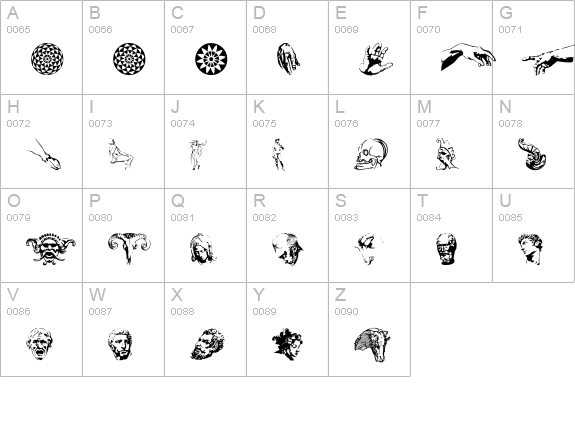
Michelangelo Extras Font Details
Michelangelo Extras font is a stunning display typeface that exudes elegance and sophistication. With its intricate design and ornate details, this font is perfect for adding a touch of luxury to your projects. From swirls and flourishes to decorative elements, Michelangelo Extras offers a wide range of beautiful characters to enhance your designs. The best part? Michelangelo Extras font is available for free download at FontsMarket.com. Whether you're working on a wedding invitation, a branding project, or any other creative endeavor, this font will surely make a statement. Don't miss out on the opportunity to elevate your designs with the exquisite beauty of Michelangelo Extras. Download it now and let your creativity shine!